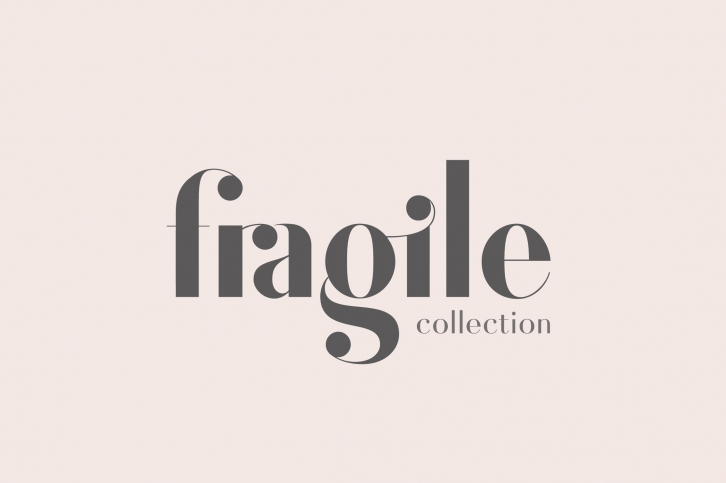
Fragile Collection is a great font that was designed by Josh Ownby. Imagine the amount of combinations you can create using this font! The archive is 7.60 MB and it was released on October 11, 2017. Fragile Collection looks beautiful on wedding invitations, greeting cards, logos, posters, labels, t-shirt designs, logos, business cards and is perfect for use in ink or watercolor works, fashion, magazines, packaging and food menus, children's books and more!